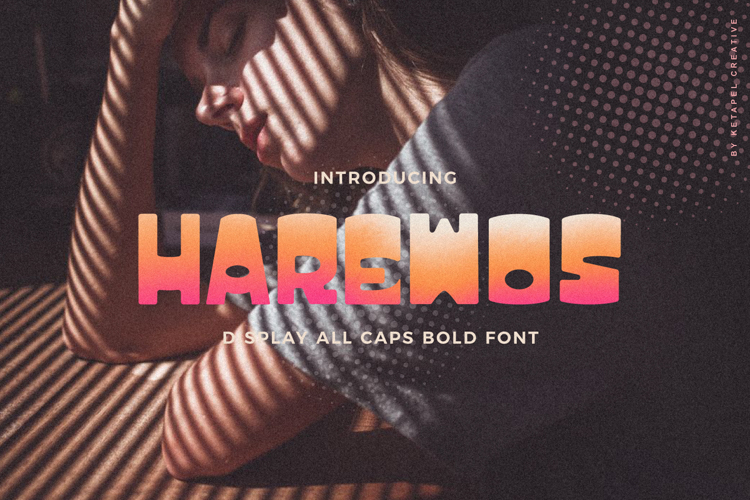
HAREWOS Font
Harewos is a bold display all caps font. It will look stunning on banner, poster, flyer, book cover, social media, digital print, or anything.
Use this font for your designs and explore its endless possibilities.